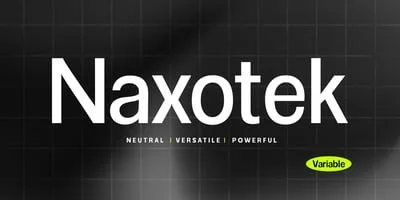
Naxotek Font
Naxotek Font is perfect for cutting-edge technology branding, futuristic software interfaces, advanced robotics marketing, high-tech manufacturing communications, cybernetic research publications, and innovative digital platform designs. Its technological character makes it ideal for tech startups, artificial intelligence companies, advanced engineering firms, quantum computing organizations, and any application requiring sophisticated typography that conveys technological advancement, digital innovation, and the precise engineering of next-generation technology solutions.
Naxotek Font is exciting because it embodies the precision and sophistication of advanced technology through meticulously engineered letterforms that reflect the systematic perfection and innovative thinking driving modern technological breakthroughs. Its technical proportions and futuristic details evoke the cutting-edge research facilities and advanced laboratories where tomorrow's technology is born, making it perfect for organizations at the forefront of technological innovation. The font's tech character transforms communications into declarations of technological supremacy.
Naxotek Font family includes technologically-advanced weight variations typically featuring Light, Regular, Medium, Bold, and Black options with systematic styling that maintains technological authenticity. The family often incorporates tech symbols, digital elements, and scientific characters designed for high-tech applications, providing designers with comprehensive tools for creating authentic, technology-focused typographic compositions.